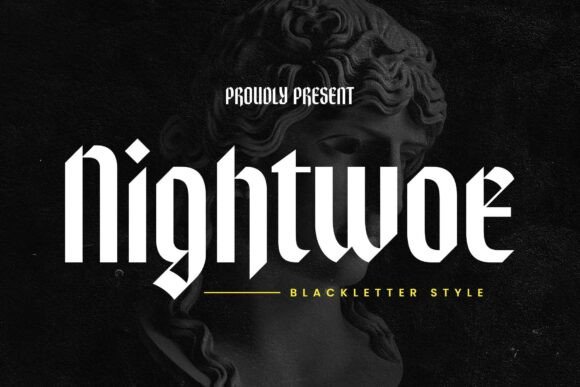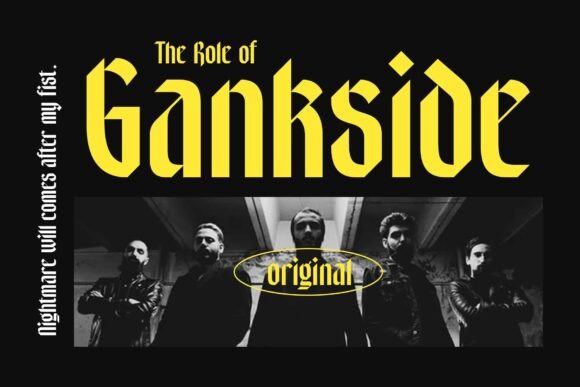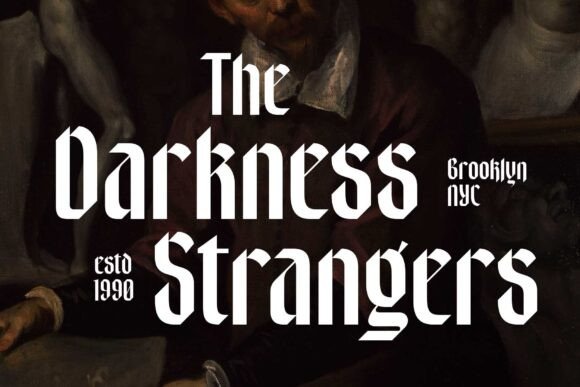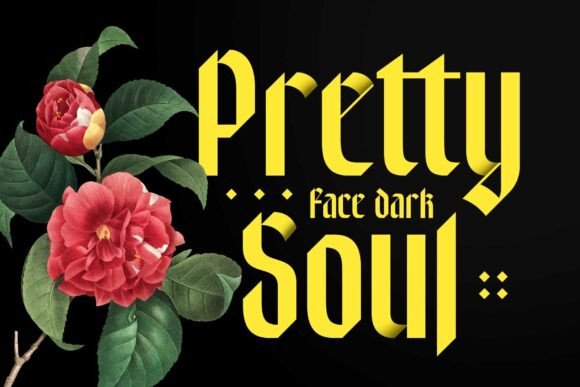
Nightwoe Font: Bold Blackletter Typography for Unique Logo Design
About the Nightwoe Font
Introducing the Nightwoe Font, a beautifully crafted typeface designed to elevate your creative projects. Nightwoe is a modern blackletter typeface. Inspired by medieval Gothic style, designed with elegant strokes and minimalist letterforms, this font looks unique and versatile to use for many purposes.
Equipped with stylistic alternates that you can give a more typographic touch to your design, such as logo, logotype, poster, apparel, flyer, quotes, books, and many more.
Nightwoe excels in display applications such as headlines, logos, and short impactful text on posters or packaging. Its elegant strokes and minimalist forms create a sophisticated yet edgy aesthetic, ideal for brands projecting a modern, slightly rebellious image. Avoid using Nightwoe for body text or extended paragraphs; its strong character and relatively high x-height make it less legible for large amounts of continuous reading.
For optimal pairings, consider complementing Nightwoe with a clean sans-serif like Montserrat or a geometric sans-serif like Futura for a contemporary contrast. A serif typeface such as Garamond or Playfair Display could offer a classic counterpoint, softening Nightwoe’s boldness while maintaining visual interest. Pairing with a script font should be approached cautiously, opting for a similarly elegant and restrained script to avoid visual clutter.
Nightwoe’s core personality is sophisticated and modern with a subtle hint of rebellion. It’s best suited for projects that require a strong visual presence and a touch of unconventional flair. Think high-fashion brands, edgy music projects, or artistic endeavors.
Nightwoe Font Usage Examples
Nightwoe Font Example